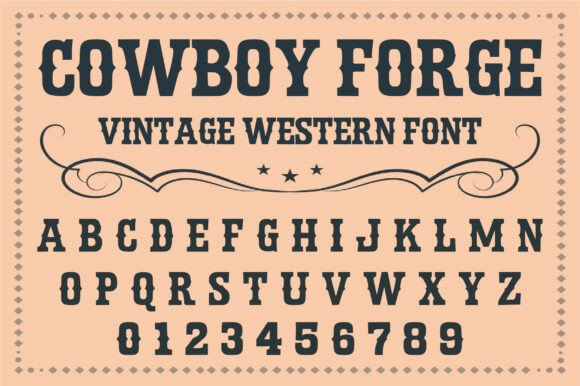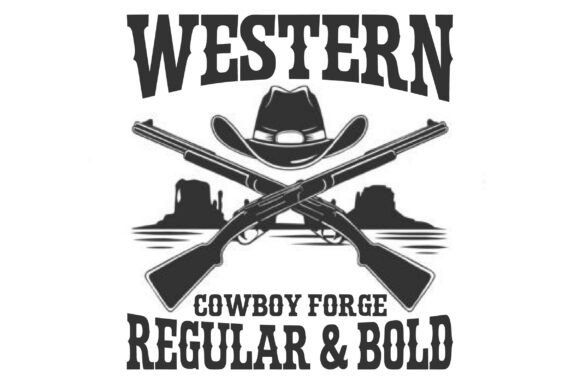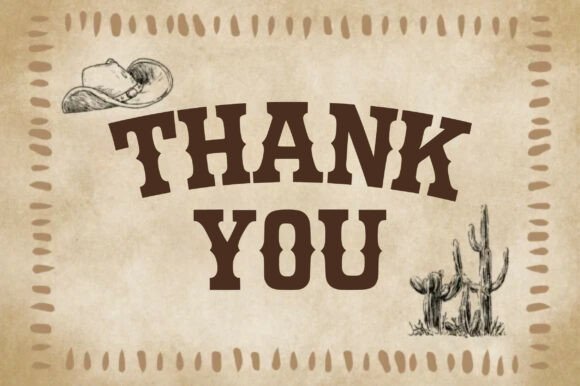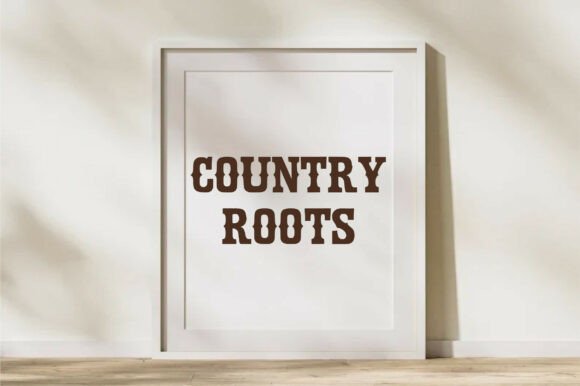
The Wild West in Typography: Unleashing the Power of Cowboy Forge Font
Imagine yourself strolling through a dusty, sun-scorched town in the American West, the sound of horse hooves echoing through the streets. You stumble upon an old saloon, its wooden sign creaking in the wind, beckoning you to come inside. The sign reads ‘Welcome to Red Rock Ranch’ in bold, rugged letters that seem to leap off the wood. That’s the kind of typography that sparks the imagination, and that’s exactly what the Cowboy Forge Font is all about.
This font is a masterful blend of classic cowboy posters and ranch lettering, with strong serifs and a vintage style that screams authenticity. Whether you’re designing a logo, badge, or headline, the Cowboy Forge Font is the perfect choice to add a touch of the Wild West to your project.
Cowboy Forge Font Key Features
- Font Family: A unique, hand-drawn western font designed to evoke the spirit of the American Wild West.
- Size: The font family includes a range of weights from Thin to Black, offering flexibility for various design applications.
- Unique Characteristics: Distinctive, hand-drawn letterforms with subtle imperfections, adding a touch of authenticity and character to your designs.
- Language Support: Supports a wide range of languages, including Latin, Cyrillic, and Greek, making it suitable for international designs.
Cowboy Forge Font Review
Overall, I’m quite pleased with the Cowboy Forge Font. It’s got a great, rugged feel that’s perfect for projects with a western or rustic theme. ✨ The font is highly legible, even at smaller sizes, and it’s got a nice balance of boldness and elegance. ✨ The designer has done a great job of capturing the spirit of the American West in this font.
- Legibility: The font is easy to read, even at smaller sizes.
- Balance: The font has a great balance of boldness and elegance.
- Rustic Feel: The font captures the spirit of the American West perfectly.
However, there are a few limitations to keep in mind. ✠️ The font is only available in a limited range of weights, which may not be ideal for projects that require a lot of flexibility. Additionally, the font may not be suitable for projects that require a more modern or sleek look. ✠️
- Weight Limitations: The font is only available in a limited range of weights.
- Style Limitations: The font may not be suitable for projects that require a more modern or sleek look.
Overall, I would definitely recommend the Cowboy Forge Font to designers working on projects with a western or rustic theme. It’s a great choice for anyone looking for a font that’s both rugged and elegant.
For best results, use the font in a bold or italic style to emphasize the text.
For a distressed look, apply a texture or layer effect to the text.
For a vintage look, use the font in a title or heading to create a sense of nostalgia.
Cowboy Forge Font is ideal for:
Western-themed designs
Rustic or vintage-inspired designs
Outdoor or country-themed designs
Creating a sense of nostalgia or retro charm
Alternatives to Cowboy Forge Font
Pacifico Font is a beautiful, elegant script font that works well for titles, headings, and logos. It’s a great choice for designers who want a sophisticated look without the rugged feel of Cowboy Forge. Pacifico is more refined and polished, making it suitable for high-end branding and luxury products.
Comparison to Cowboy Forge: While both fonts have a vintage feel, Pacifico is more refined and less rugged than Cowboy Forge. Pacifico is ideal for projects that require a touch of sophistication and elegance.
Great Vibes Font is a modern, elegant script font that’s perfect for titles, headings, and quotes. It has a relaxed, casual feel that’s similar to Cowboy Forge, but with a more refined and polished look. Great Vibes is a great choice for designers who want a font that’s both stylish and approachable.
Comparison to Cowboy Forge: Great Vibes is more refined and polished than Cowboy Forge, with a more elegant and sophisticated feel. While Cowboy Forge has a rugged, vintage feel, Great Vibes is more modern and approachable.